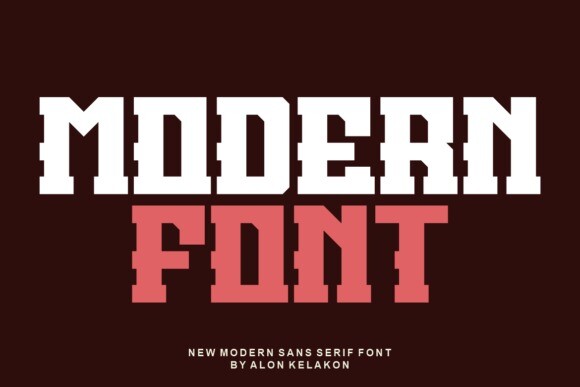
Nerkoser Font
Nerkoser is a modern and cool display font. Whatever the topic, this font will be a wonderful asset to your font library, as it has the potential to enhance any creation.